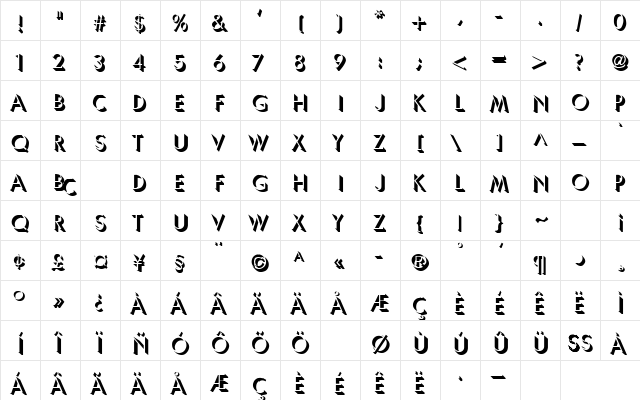
TENNILLE Regular
Design Context for TENNILLE Typeface
TENNILLE is a composed and adaptable typeface that performs quietly and consistently across a wide range of design contexts.